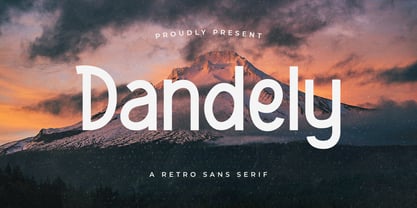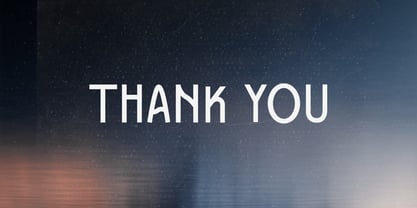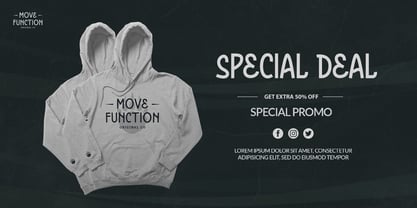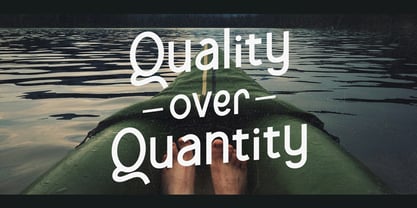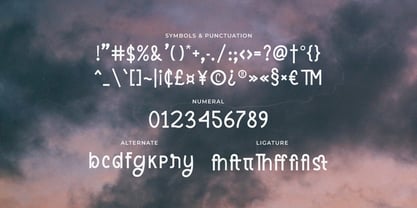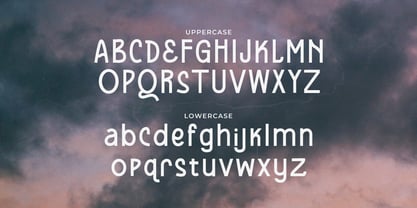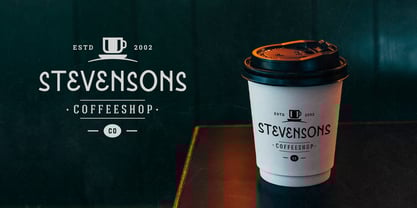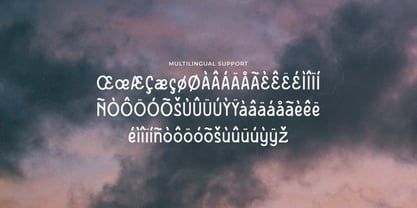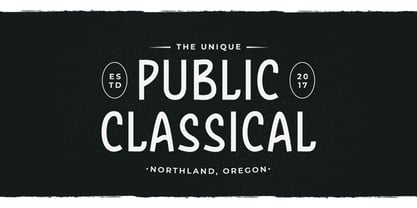
Dandely
by Typefactory
The Dandely Font Family was designed by Hilmius Akbar and published by Typefactory. Dandely contains 1 styles.
Dandely is a versatile sans serif typeface that gives a retro aesthetic.
With it’s unique & distinct characteristics it sets itself apart, while also maintaining a strong timeless appeal overall.
The font will easily match a wide range of creations that require a distinct touch.
– Uppercase
– Lowercase
– Symbols & Punctuation
– Numeral
– Ligature
– Alternate
– Multilingual Support